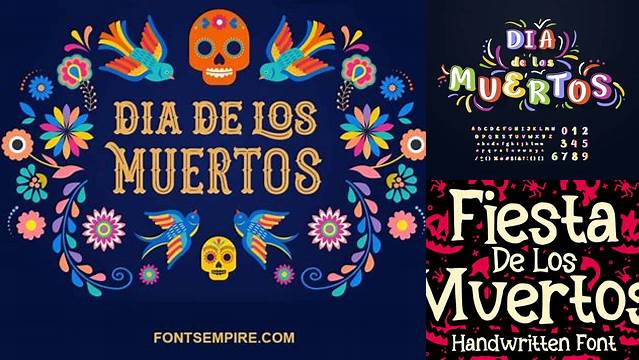
Dia De Los Muertos Fonts: Free Downloads For Your Designs
Dia de los Muertos, or Day of the Dead, is a vibrant and culturally rich holiday celebrated in Mexico and parts of Latin America. If you're looking to infuse your designs with the spirit of this festive occasion, finding the right font is crucial. This article explores a wide range of Dia de los Muertos fonts available for free download, offering options for various projects, from posters and invitations to social media graphics and more.
1. Understanding Dia de los Muertos Typography
Before diving into specific font options, it's helpful to understand the key characteristics of typography associated with Dia de los Muertos. Common themes include ornate details, skeletal motifs, vibrant colors (though fonts themselves are often black or white), and a generally festive yet respectful tone. Fonts often evoke traditional Mexican art, folk art, and calligraphy, reflecting the holiday's deep cultural roots. Choosing the right Dia de los Muertos fonts is essential to capture the essence of the celebration.
2. Free Calavera Fonts for a Skeletal Touch
Calaveras, or skulls, are iconic symbols of Dia de los Muertos. Fonts incorporating skeletal elements can add a unique and thematic touch to your designs. Many free fonts feature stylized skulls within the letterforms or as decorative elements. When using Dia de los Muertos fonts with calavera designs, ensure they are legible and complement the overall design without overwhelming it. Consider the placement and size of the skulls to maintain balance and visual appeal. These fonts are perfect for adding a playful yet respectful nod to the holiday's imagery.
3. Exploring Ornate and Decorative Dia de los Muertos Fonts
Ornate and decorative fonts are prevalent in Dia de los Muertos designs. These fonts often feature elaborate swirls, flourishes, and embellishments that evoke traditional Mexican artistry. Look for Dia de los Muertos fonts with intricate details that add visual interest and a touch of elegance to your projects. These are best used for headings or short phrases where the details can be fully appreciated. Pair them with simpler fonts for body text to ensure readability. These decorative options can elevate your designs and capture the festive spirit of the holiday.
4. Traditional Mexican-Inspired Fonts for Authentic Designs
To achieve an authentic Dia de los Muertos look, consider using fonts inspired by traditional Mexican art and typography. These Dia de los Muertos fonts often draw from historical sources, such as hand-painted signs, posters, and folk art. They may feature unique letterforms and distinctive stylistic elements that reflect the cultural heritage of the holiday. Researching the origins of these fonts can add depth and meaning to your designs. Incorporating these fonts helps honor the traditions and cultural significance of Dia de los Muertos.
5. Modern Fonts with a Dia de los Muertos Twist
If you prefer a more contemporary aesthetic, explore modern fonts with subtle Dia de los Muertos influences. These Dia de los Muertos fonts may incorporate elements such as stylized serifs, unique letter shapes, or thematic color palettes that hint at the holiday's imagery. They offer a fresh and updated approach to Dia de los Muertos design, suitable for a variety of applications. These fonts can provide a balance between tradition and modernity, appealing to a wider audience while still honoring the spirit of the celebration.
6. Finding Free Script Fonts for Elegant Invitations
Script fonts can add an elegant and personal touch to Dia de los Muertos invitations and announcements. Look for Dia de los Muertos fonts with flowing lines and graceful curves that evoke a sense of festivity and celebration. Consider fonts that mimic traditional Mexican calligraphy or hand-lettering styles. Pair script fonts with simpler sans-serif fonts for a balanced and readable design. Ensure the script is legible, especially when used for important information like dates and times. These fonts add a touch of sophistication to your Dia de los Muertos designs.
7. Bold and Impactful Fonts for Posters and Banners
For posters and banners, you'll need bold and impactful fonts that grab attention and convey your message effectively. Choose Dia de los Muertos fonts with strong letterforms and high visibility. Consider fonts with a slightly condensed or expanded width to maximize space and impact. Use contrasting colors to make the text stand out against the background. These fonts are essential for creating eye-catching visuals that draw people in and communicate the essence of the Dia de los Muertos celebration.
8. Using Serif Fonts to Honor Dia de los Muertos
Serif fonts, with their classic and traditional appearance, can be used to honor the solemn yet celebratory nature of Dia de los Muertos. When selecting Dia de los Muertos fonts, choose serif fonts that have a slightly decorative or vintage feel, reflecting the holiday's deep cultural roots. Serif fonts are great for body text, offering readability while still conveying a sense of tradition. They pair well with bolder, more decorative fonts for headings and titles. These fonts can add a touch of reverence and respect to your designs.
9. Sans-Serif Fonts for a Modern Dia de los Muertos Look
For a more contemporary and minimalist Dia de los Muertos design, consider using sans-serif fonts. These fonts offer a clean and modern aesthetic while still capturing the spirit of the holiday. Look for Dia de los Muertos fonts that incorporate subtle thematic elements, such as stylized letterforms or unique color palettes. Sans-serif fonts are versatile and work well for both headings and body text. They provide a fresh and updated approach to Dia de los Muertos design, appealing to a wider audience while maintaining cultural sensitivity.
10. Combining Fonts for a Dynamic Dia de los Muertos Design
Combining different fonts can create a dynamic and visually appealing Dia de los Muertos design. Experiment with pairing Dia de los Muertos fonts with contrasting styles, such as a bold decorative font for headings and a simple sans-serif font for body text. Ensure the fonts complement each other and create a sense of visual harmony. Use a font pairing tool or consult with a designer to find effective combinations. Combining fonts adds depth and interest to your designs, making them more engaging and memorable.
11. The Importance of Legibility in Dia de los Muertos Designs
While decorative and thematic fonts are essential for capturing the spirit of Dia de los Muertos, legibility should always be a top priority. Choose Dia de los Muertos fonts that are easy to read, especially when used for important information such as dates, times, and locations. Avoid fonts with overly intricate details or unconventional letterforms that may hinder readability. Test your designs with different font sizes and viewing distances to ensure the text is clear and legible. Legibility is crucial for effective communication and ensuring your message is understood.
12. Color Considerations for Dia de los Muertos Fonts
Color plays a vital role in Dia de los Muertos designs, and it's important to consider how your font choices interact with the overall color palette. While many Dia de los Muertos fonts are black or white, you can experiment with using colors to add visual interest and thematic relevance. Consider using traditional Dia de los Muertos colors, such as vibrant oranges, yellows, purples, and pinks. Ensure the font color contrasts sufficiently with the background to maintain legibility. Color can enhance the impact of your fonts and contribute to the overall festive atmosphere of your designs.
13. Free Download Websites for Dia de los Muertos Fonts
Numerous websites offer free fonts for download, including a variety of Dia de los Muertos-themed options. Some popular sites include DaFont, FontSpace, and Google Fonts. When downloading Dia de los Muertos fonts, be sure to check the licensing terms to ensure they are suitable for your intended use. Many free fonts are available for personal use, but commercial use may require a license or attribution. Always respect the font designer's rights and follow the licensing guidelines. These websites are valuable resources for finding the perfect fonts for your Dia de los Muertos projects.
14. Understanding Font Licensing for Free Downloads
Before using any free font, it's essential to understand the licensing terms. Font licenses specify how the font can be used, whether for personal or commercial projects. Some Dia de los Muertos fonts may be free for personal use but require a commercial license for use in for-profit projects. Read the license carefully and comply with the terms to avoid copyright infringement. If you're unsure about the licensing terms, contact the font designer or distributor for clarification. Understanding font licensing ensures you're using fonts legally and ethically.
15. Installing Your Downloaded Dia de los Muertos Fonts
Once you've downloaded your chosen Dia de los Muertos fonts, you'll need to install them on your computer. The installation process varies depending on your operating system. On Windows, you can typically right-click on the font file and select "Install." On macOS, you can drag the font file to the Font Book application. After installing the fonts, they should be available for use in your design software. Restart your design applications if the fonts don't appear immediately. Installing fonts is a straightforward process that allows you to use them in your projects.
16. Using Dia de los Muertos Fonts in Adobe Photoshop
Adobe Photoshop is a popular design tool for creating Dia de los Muertos graphics. To use your downloaded Dia de los Muertos fonts in Photoshop, simply select the Text tool and choose your desired font from the font menu. You can adjust the font size, color, and other properties to customize the appearance of your text. Experiment with different font combinations and effects to create visually stunning designs. Photoshop offers a wide range of tools and features for working with fonts, allowing you to create unique and impactful Dia de los Muertos graphics.
17. Using Dia de los Muertos Fonts in Adobe Illustrator
Adobe Illustrator is another powerful design tool for creating vector-based Dia de los Muertos illustrations and typography. To use your Dia de los Muertos fonts in Illustrator, select the Type tool and choose your desired font from the Character panel. You can create outlines from your text to further customize the letterforms and add unique effects. Illustrator's vector-based nature allows you to scale your designs without losing quality. This is particularly useful for creating large-format posters and banners. Illustrator provides a versatile platform for working with fonts and creating visually compelling Dia de los Muertos designs.
18. Dia de los Muertos Fonts for Social Media Graphics
Social media is a powerful platform for sharing Dia de los Muertos messages and designs. When creating social media graphics, choose Dia de los Muertos fonts that are legible and visually appealing on smaller screens. Consider using bold and impactful fonts for headlines and shorter, more readable fonts for captions and descriptions. Use contrasting colors to make your text stand out against the background. Optimize your graphics for different social media platforms to ensure they display correctly. Social media graphics are an effective way to engage with your audience and share the spirit of Dia de los Muertos.
19. Creating Dia de los Muertos Invitations with Free Fonts
Designing Dia de los Muertos invitations is a great way to celebrate the holiday with friends and family. Use Dia de los Muertos fonts that reflect the festive and celebratory nature of the occasion. Consider using script fonts for elegant invitations or bold, decorative fonts for more casual gatherings. Include all the necessary information, such as the date, time, location, and dress code. Personalize your invitations with unique designs and messages that capture the spirit of Dia de los Muertos. Creating custom invitations adds a personal touch and makes your event more special.
20. Designing Dia de los Muertos Altars with Thematic Typography
Altars, or ofrendas, are a central part of Dia de los Muertos celebrations. They are created to honor and remember deceased loved ones. Incorporating thematic typography into your altar designs can add a personal and meaningful touch. Use Dia de los Muertos fonts to create signs, banners, or labels for the altar. Consider using fonts that reflect the personality and interests of the deceased. You can also use fonts to create quotes or messages that express love and remembrance. Designing altars with thematic typography is a beautiful way to honor and celebrate the lives of those who have passed.
21. Exploring Calligraphy-Inspired Dia de los Muertos Fonts
Calligraphy-inspired fonts can add a touch of elegance and sophistication to your Dia de los Muertos designs. These Dia de los Muertos fonts often feature flowing lines, graceful curves, and intricate details that mimic traditional calligraphy styles. Consider using these fonts for invitations, announcements, or personalized messages. Pair them with simpler fonts for body text to ensure readability. Calligraphy-inspired fonts can elevate your designs and add a touch of artistic flair to your Dia de los Muertos projects.
22. Vintage and Retro Dia de los Muertos Font Styles
Vintage and retro font styles can evoke a sense of nostalgia and tradition in your Dia de los Muertos designs. Look for Dia de los Muertos fonts that resemble old hand-painted signs, posters, or advertisements. These fonts often feature distressed textures, unique letterforms, and a slightly worn appearance. They can add character and authenticity to your designs, making them feel more timeless and evocative. Vintage and retro fonts are a great way to capture the historical and cultural roots of Dia de los Muertos.
23. Combining Dia de los Muertos Fonts with Traditional Imagery
To create truly impactful Dia de los Muertos designs, combine your font choices with traditional imagery associated with the holiday. This imagery includes calaveras (skulls), cempasúchil flowers (marigolds), papel picado (cut paper banners), and sugar skulls. Use Dia de los Muertos fonts to complement these images and enhance their visual impact. Consider the colors and styles of the fonts and images to create a cohesive and harmonious design. Combining fonts with traditional imagery can create powerful and meaningful Dia de los Muertos visuals.
24. Creating a Dia de los Muertos Logo with Free Fonts
A logo is an essential element of branding, and you can create a Dia de los Muertos-themed logo using free fonts. Choose Dia de los Muertos fonts that reflect the spirit and values of your brand or organization. Consider using a combination of fonts to create a unique and memorable logo. Keep the design simple and easy to recognize. Ensure the logo is legible and scalable for use in various applications. A well-designed Dia de los Muertos logo can help you connect with your audience and convey your message effectively.
25. Animating Dia de los Muertos Fonts for Video Projects
Animating fonts can add a dynamic and engaging element to your Dia de los Muertos video projects. Use animation software like Adobe After Effects to bring your Dia de los Muertos fonts to life. Experiment with different animation techniques, such as text reveals, fades, and transformations. Consider adding sound effects and music to enhance the visual impact of your animations. Animated fonts can create a more immersive and captivating viewing experience, making your Dia de los Muertos videos more memorable.
26. Designing Dia de los Muertos T-Shirts with Free Typography
Creating Dia de los Muertos t-shirts is a fun and creative way to celebrate the holiday. Use free typography to design unique and eye-catching t-shirt graphics. Choose Dia de los Muertos fonts that are bold, legible, and visually appealing. Consider incorporating traditional imagery, such as calaveras, flowers, and papel picado. Ensure the design is well-balanced and easy to read. Use a t-shirt design software or service to create your custom t-shirts. Designing Dia de los Muertos t-shirts allows you to express your creativity and share your love for the holiday.
27. Dia de los Muertos Fonts for Websites and Blogs
Choosing the right fonts for your Dia de los Muertos-themed website or blog is crucial for creating a visually appealing and engaging online experience. Select Dia de los Muertos fonts that are legible, accessible, and consistent with your brand's style. Consider using different fonts for headings, body text, and captions to create visual hierarchy. Optimize your fonts for web use to ensure they load quickly and display correctly on different devices. A well-designed website or blog can effectively communicate your message and connect with your audience.
28. Creating Themed Certificates and Awards with Dia de los Muertos Fonts
If you're hosting a Dia de los Muertos event or competition, consider creating themed certificates and awards using free fonts. Choose Dia de los Muertos fonts that reflect the festive and celebratory nature of the occasion. Design certificates that are visually appealing and easy to read. Include the recipient's name, the award title, and the date. Add a personal message or quote to make the certificate more meaningful. Themed certificates and awards can add a special touch to your Dia de los Muertos events and recognize the achievements of participants.
29. Dia de los Muertos Fonts for Educational Materials
Dia de los Muertos is a great opportunity to educate others about Mexican culture and traditions. If you're creating educational materials, such as worksheets, presentations, or posters, use Dia de los Muertos fonts to enhance their visual appeal and thematic relevance. Choose fonts that are legible and appropriate for the age group you're targeting. Incorporate traditional imagery and colors to create engaging and informative educational materials. Education materials are a great way to share the traditions and cultural significance of the Day of the Dead.
30. Best Practices for Using Free Dia de los Muertos Fonts
To ensure your Dia de los Muertos designs are successful, follow these best practices for using free fonts: Always check the font license before using it, ensure the font is legible and appropriate for your target audience, combine fonts effectively to create visual hierarchy, use colors that complement the fonts and imagery, optimize your designs for different platforms and devices, and respect the cultural significance of Dia de los Muertos. By following these best practices, you can create beautiful and meaningful Dia de los Muertos designs that honor the holiday's traditions and spirit.